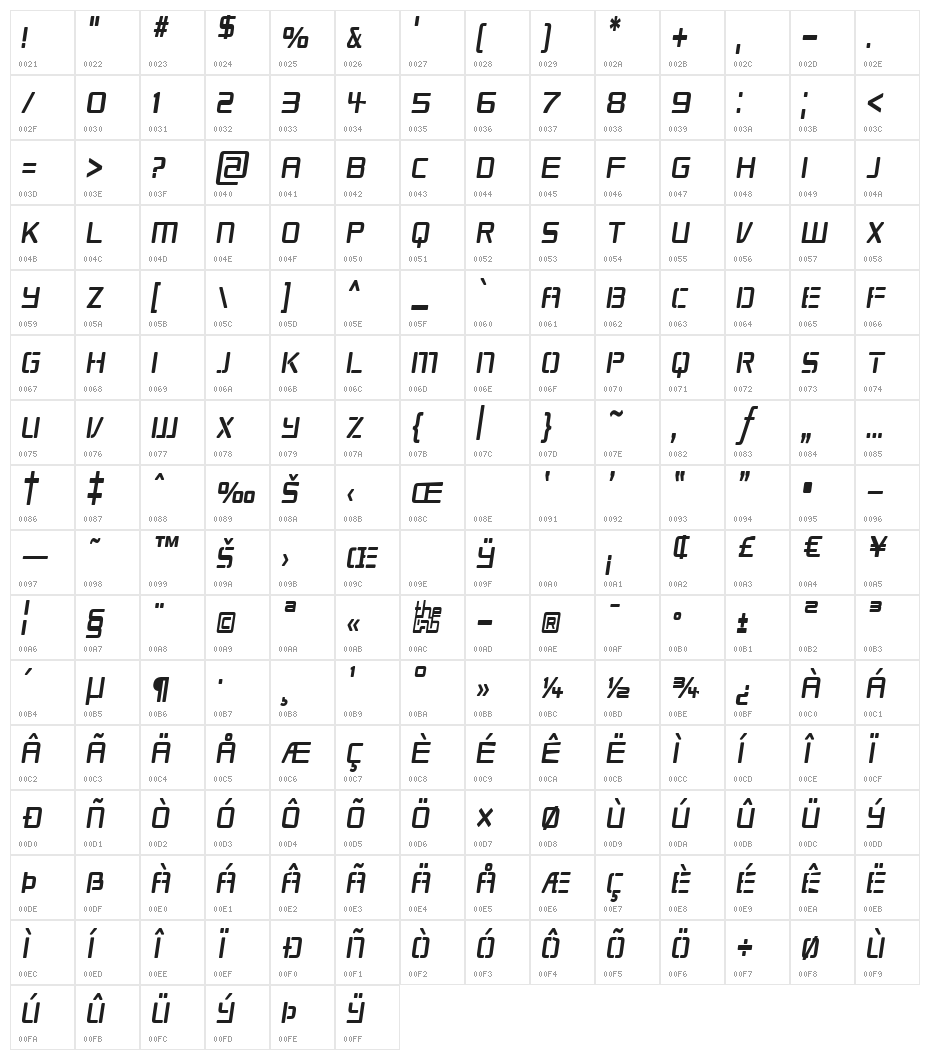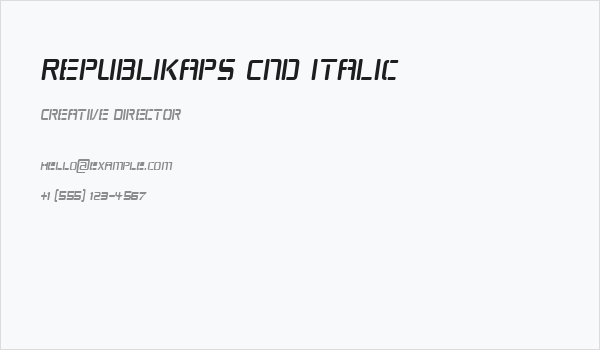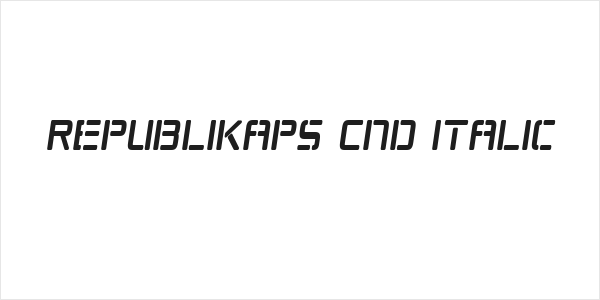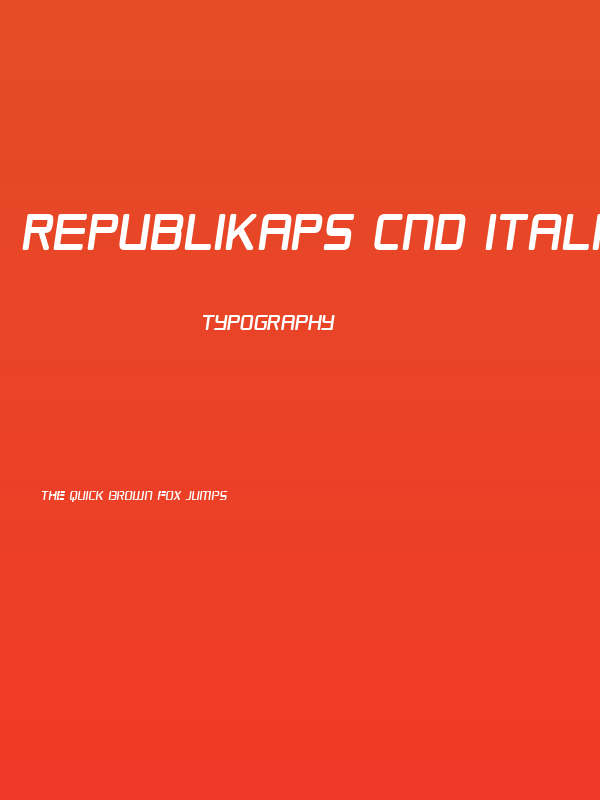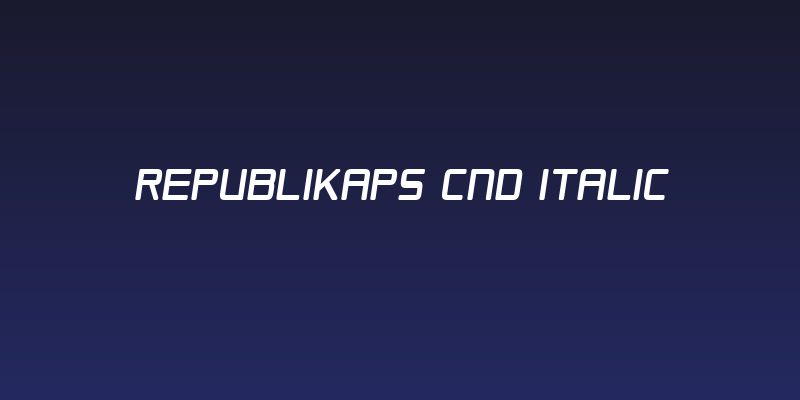
Republikaps Cnd Italic Font
Republikaps Cnd Italic Description
This font features a modern, sleek design with a condensed and italicized style. The characters are slightly slanted, giving a dynamic and forward-moving appearance. The font maintains a consistent stroke width, contributing to a clean and uniform look. Its geometric shapes and sharp angles provide a futuristic and technical feel, making it suitable for contemporary design projects. The spacing between characters is tight, enhancing its compact and efficient appearance. The font includes a full set of uppercase and lowercase letters, numbers, and a variety of special characters, ensuring versatility for various applications.
| Proposed Projects | Ideal for technology branding, modern advertising, and futuristic design projects. |